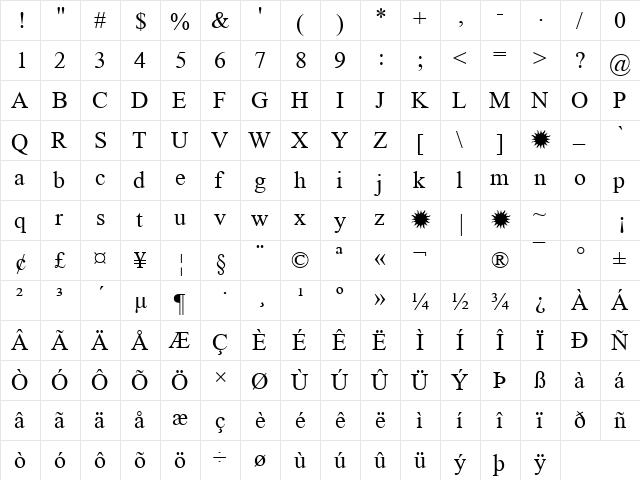
Sunwalk Logo Regular
Design Context for Sunwalk Logo Typeface
Sunwalk Logo takes a measured approach to typography — its balanced proportions and neutral character make it a reliable workhorse for both digital and print work.